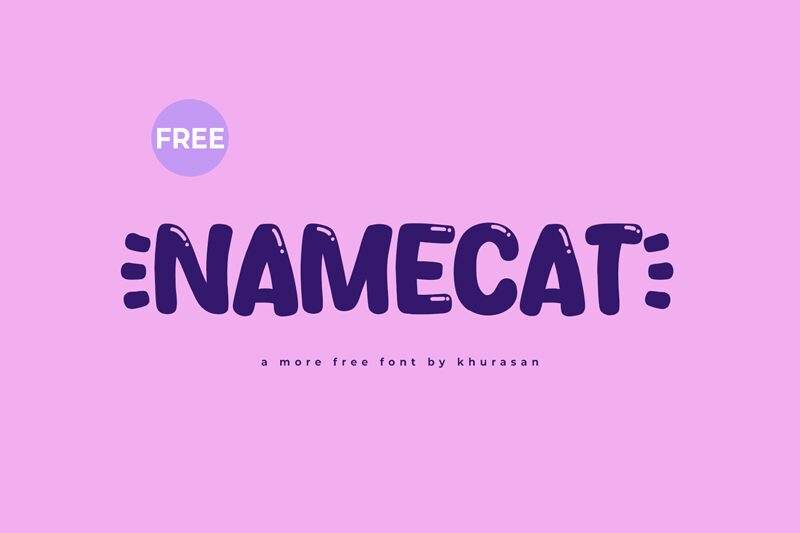
Namecat
Namecat, designed by Khurasan, emerges as a playful and dynamic display font with a cartoonish flair. Its bold weight commands attention while its rounded edges and whimsical character designs inject a sense of fun and creativity. The unique aesthetic of Namecat makes it an excellent choice for engaging projects that aim to appeal to a youthful audience or any endeavor that desires a touch of lightheartedness.
The font's style conveys friendliness and approachability, making it ideal for children's books, animated movie titles, gaming interfaces, or eye-catching logos. The substantial boldness ensures legibility even from afar, which is perfect for posters and signage where immediate impact is key.
Embrace the charm of Namecat to infuse your creative projects with personality and playfulness without sacrificing the clarity provided by its robust presentation.